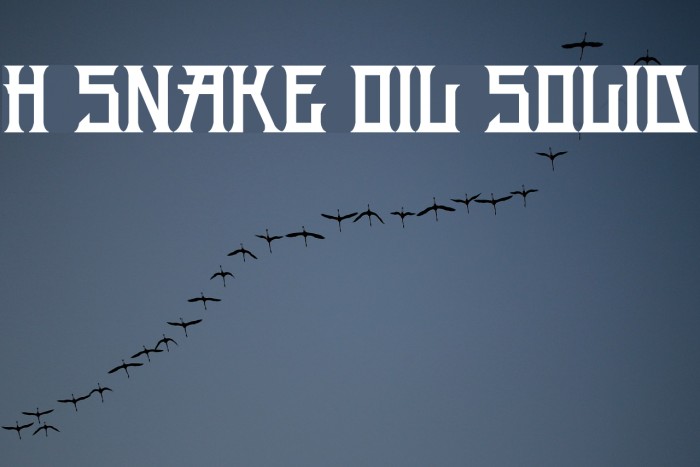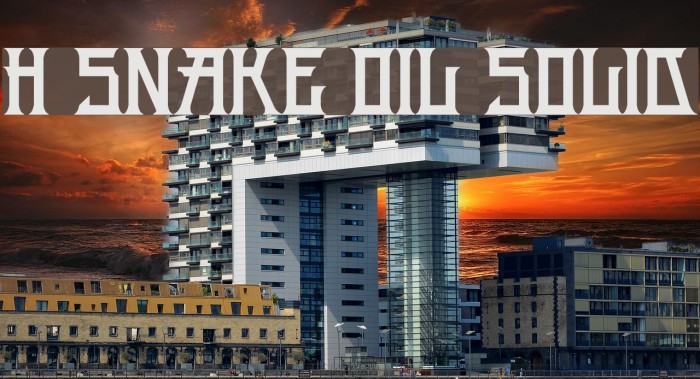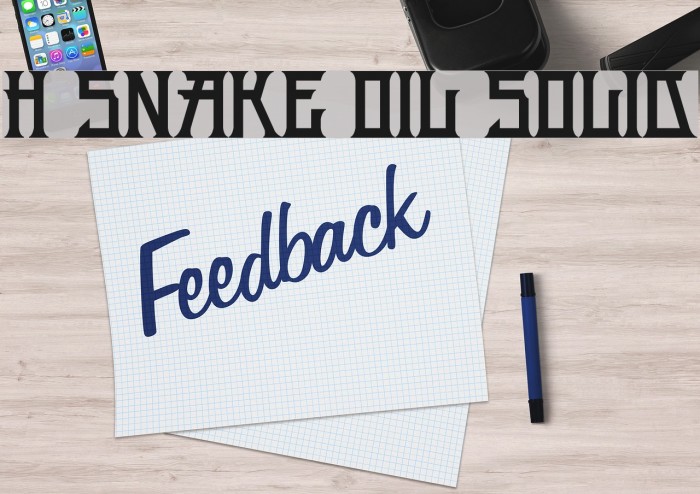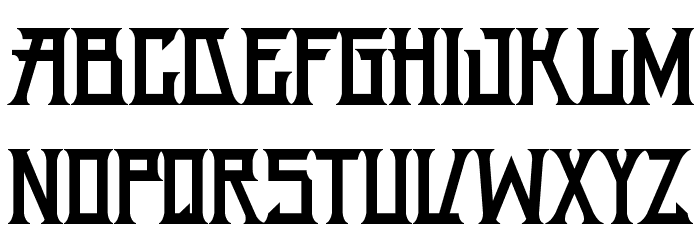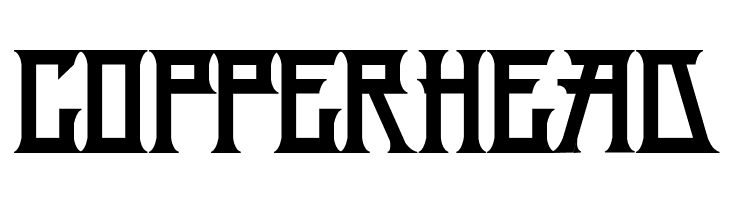
H74 Snake Oil Solid Font
H74 Snake Oil Solid Description
This font features a bold and striking design with angular, geometric shapes that give it a modern and edgy appearance. The characters are crafted with sharp edges and a uniform thickness, creating a cohesive and impactful look. The uppercase letters are particularly distinctive, with unique cuts and angles that add a sense of dynamism and movement. The font's style is reminiscent of futuristic or sci-fi themes, making it ideal for projects that require a strong visual presence. The consistent weight and width across all characters ensure readability while maintaining its bold aesthetic.
A bold, angular font with a modern, futuristic style from Uncategorized fonts.
- Proposed Projects: Ideal for sci-fi themed posters, video game titles, and branding that requires a strong, modern look.